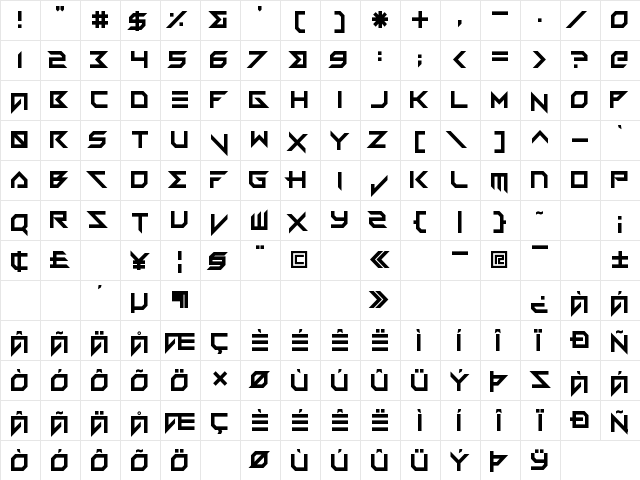
Vermin Vibes 3 Regular Font Preview
Vermin Vibes 3 Regular
Design Context for Vermin Vibes 3 Typeface
Vermin Vibes 3 is a composed and adaptable typeface that performs quietly and consistently across a wide range of design contexts.